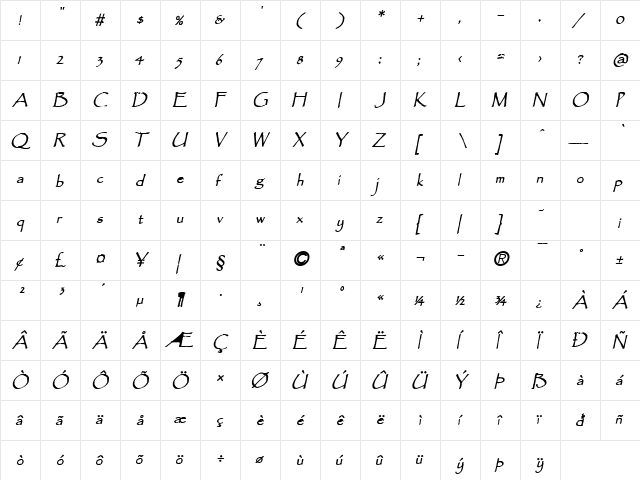
Chalk Bold Italic Font Preview
Chalk Bold Italic
Chalk Bold Italic Font Details
Design Context for Chalk Typeface
Chalk is a composed and adaptable typeface that performs quietly and consistently across a wide range of design contexts. The slanted form adds forward momentum and visual energy. The heavy weight commands attention and anchors typographic hierarchies.